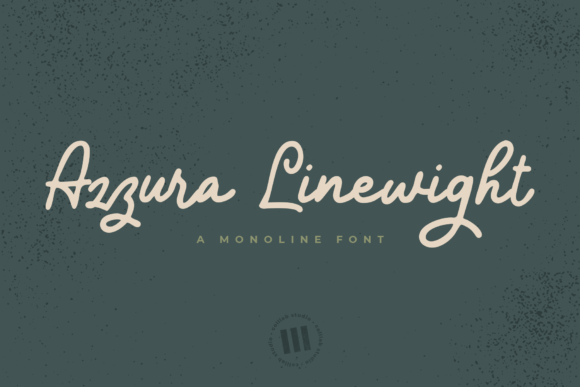
The Designer’s Delight: Azzura Lineweight Font
I still remember the frustration of working on a project, hours spent searching for the perfect font, only to end up with a mediocre result. My client wanted a bold, eye-catching headline, but I just couldn’t find the right fit. That was until I stumbled upon Azzura Lineweight, a game-changing handwritten font that has since become a staple in my design toolkit.
Azzura Lineweight has won me over with its unique blend of classic typography and modern flair. Here’s what I love about it:
- ✨ Versatility: This font shines in headlines of all sizes, as well as blocks of text with varying weights and styles.
- ✅ Legibility: The clean lines and well-spaced characters make it easy to read, even at smaller sizes.
- 💥 Expressiveness: Azzura Lineweight has a personality all its own, adding a touch of whimsy and sophistication to any design.
Of course, no font is perfect, and Azzura Lineweight has a few minor quirks:
- 🤔 Limited use in body text: While it’s amazing for headlines, Azzura Lineweight might not be the best choice for lengthy blocks of body text.
- ⚠️ Occasional kerning issues: As with any font, some manual kerning may be required to achieve optimal results.
- Experiment with the font’s OpenType features, such as stylistic alternates and glyphs, to add visual interest.
Exploring Alternatives: 4 Fonts Similar to Azzura Lineweight
If you’re looking for more fonts with a similar vibe, consider these alternatives:
- Pacifico: A beautiful, elegant script font perfect for headlines and titles.
- Great Vibes: A fun, energetic script font ideal for creative projects and branding.
- Alex Brush: A lovely, handwritten font with a whimsical feel.
- Lobster: A bold, sophisticated script font great for making a statement.
The Story Behind Azzura Lineweight
Azzura Lineweight was inspired by the classic typography of the past, with a modern twist. Its creator aimed to craft a font that would bring a touch of elegance and sophistication to any design project. While the true story behind the font’s creation may be unknown, its impact on the design world is undeniable.
| Is Azzura Lineweight suitable for body text? | While Azzura Lineweight is amazing for headlines, it may not be the best choice for lengthy blocks of body text. |